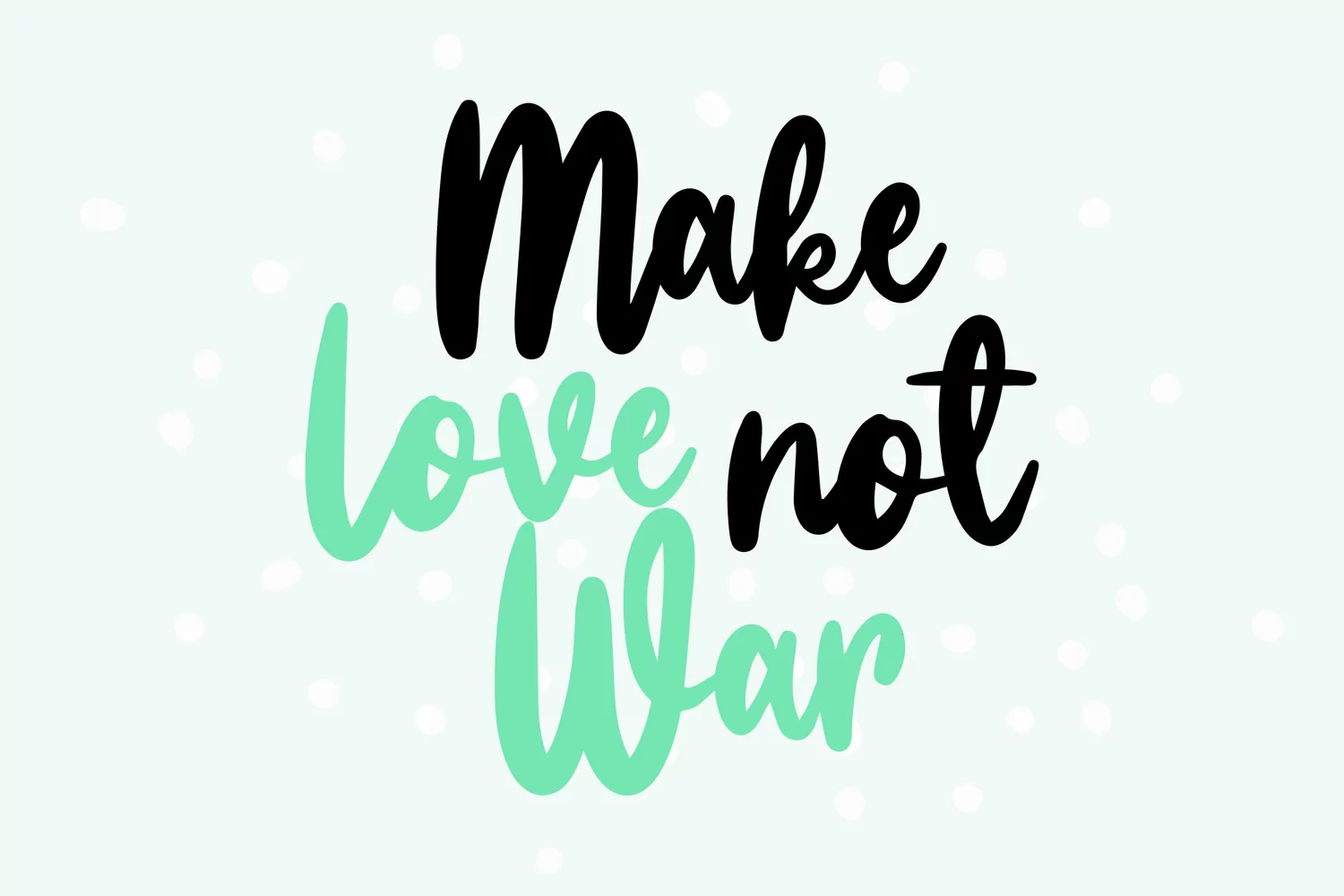
Sassy Girly - Script Font that contain lowercase, uppercase, symbol, and also support multi language. There’s a lot ligatures in this font. This Font also comes with ligatures, alternates and many more. this font suitable for fashion, branding, catalog and other design what you want.
Sassy Girly